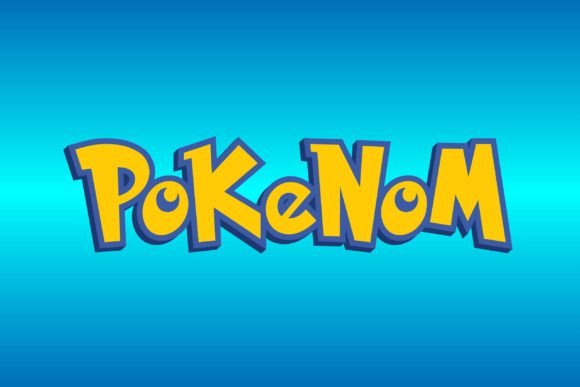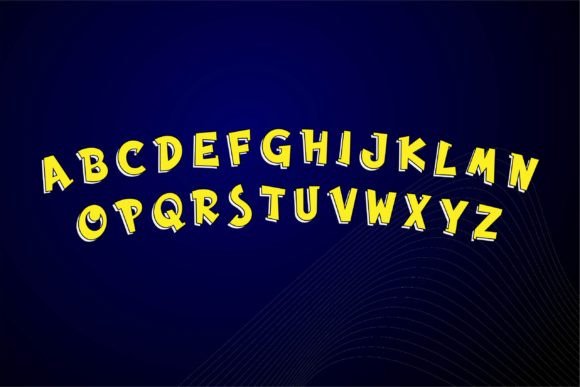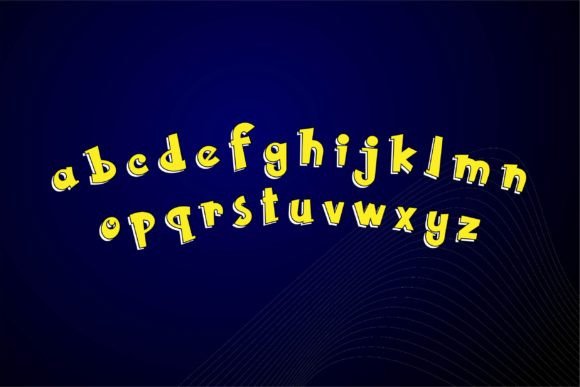
Pokenom Font
About the Pokenom Font
Experience the unique personality of Pokenom Font, a font designed for impact. Pokenom: A Gothic-crafted Stylish Decorative Pokemon Font, brimming with Cartoon Quality. Ideal for Movie titles, Cartoon and Game names, and T-shirt designs, Pokenom unleashes creativity. Featuring 96 meticulously designed glyphs and 95 characters, it transforms ordinary expressions into captivating visual stories, making it the ultimate choice for dynamic and engaging typography across diverse design projects.
Pokenom’s bold, playful personality makes it ideal for headlines, logos, and short, impactful text on posters or packaging. Its cartoonish quality is perfect for projects targeting a younger audience or those requiring a fun, energetic feel. However, its decorative nature makes it unsuitable for body text or UI elements where readability is paramount; long stretches of Pokenom would be visually overwhelming and difficult to read.
Pairing Pokenom effectively requires a contrast in style. A clean, geometric sans-serif like Futura or a simple serif like Garamond would provide a solid, readable counterpoint for body text or supporting information. For a more playful feel, consider pairing it with a rounded sans-serif such as Gill Sans.
The font’s inherent energy works best for brands associated with entertainment, children’s products, or anything requiring a whimsical yet memorable aesthetic. Avoid using it for projects demanding sophistication or seriousness.